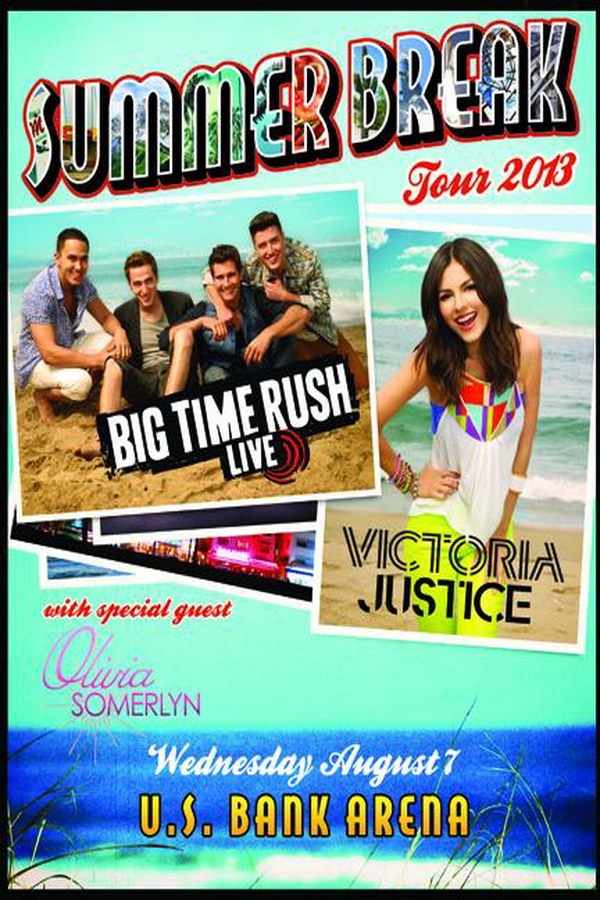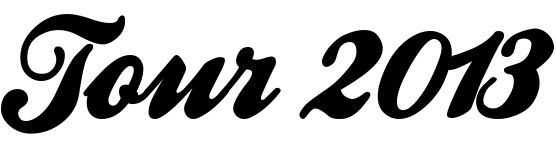
Summer Break Tour Font
CampaignSummer Break Tour was a joint concert tour by the American boy band Big Time Rush and American pop singer Victoria Justice. The tour took place during the summer of 2013 and featured performances by both artists across North America.